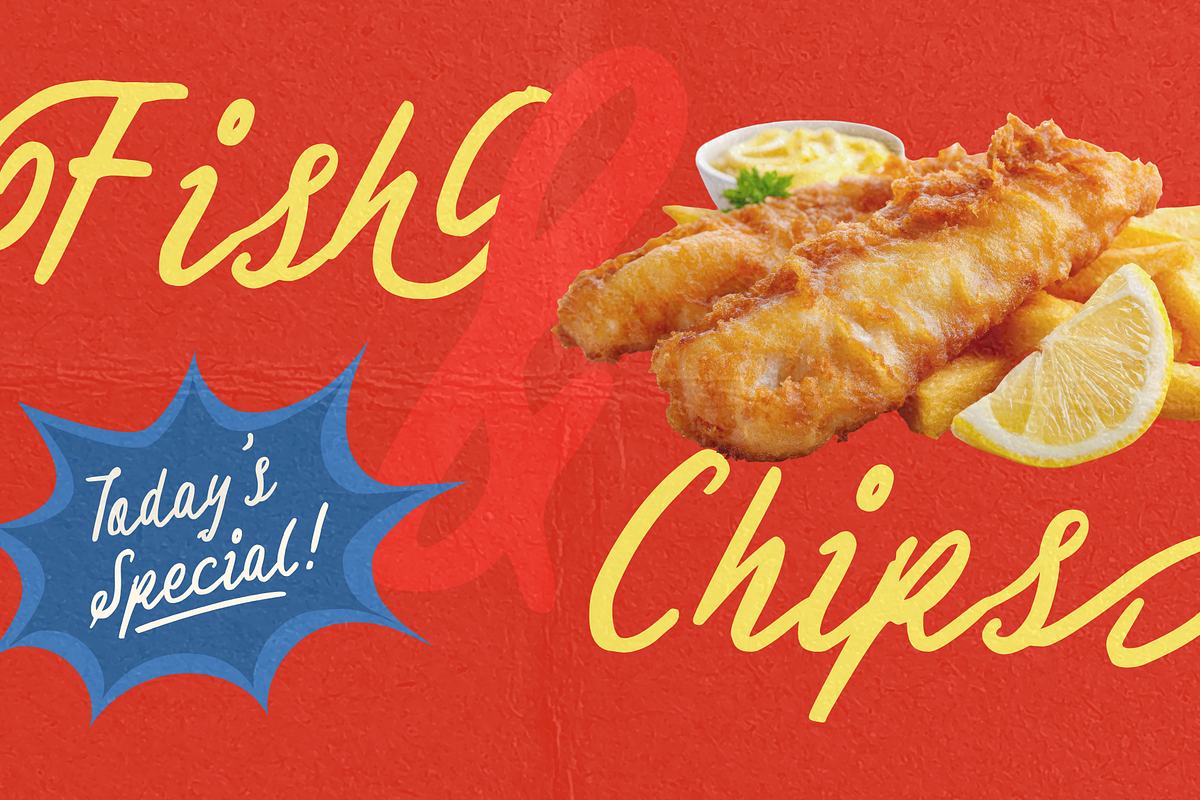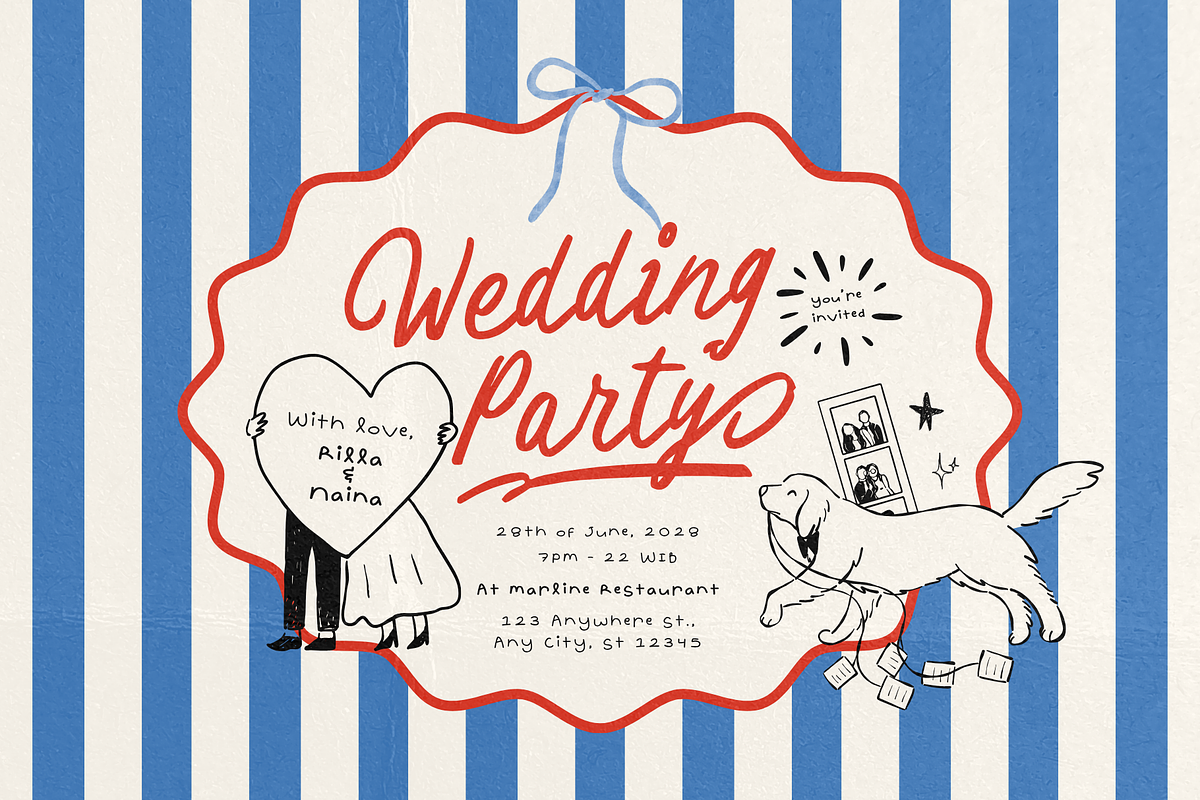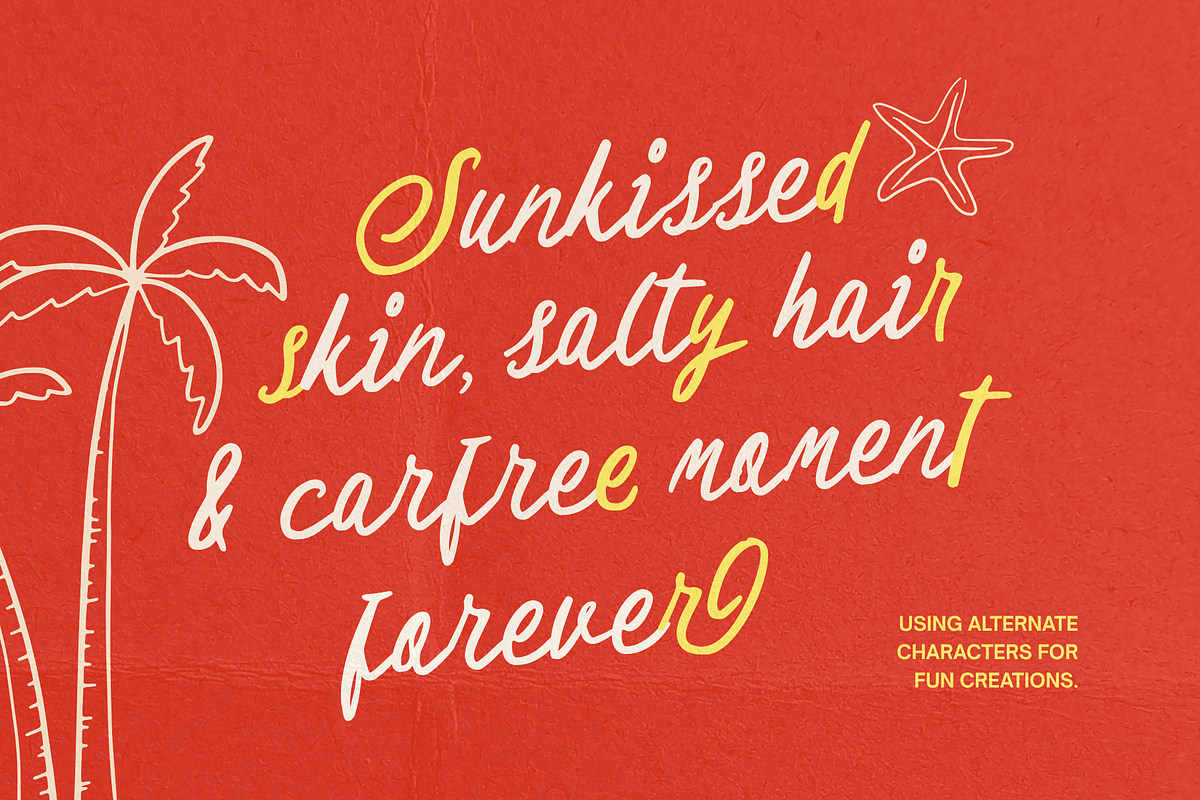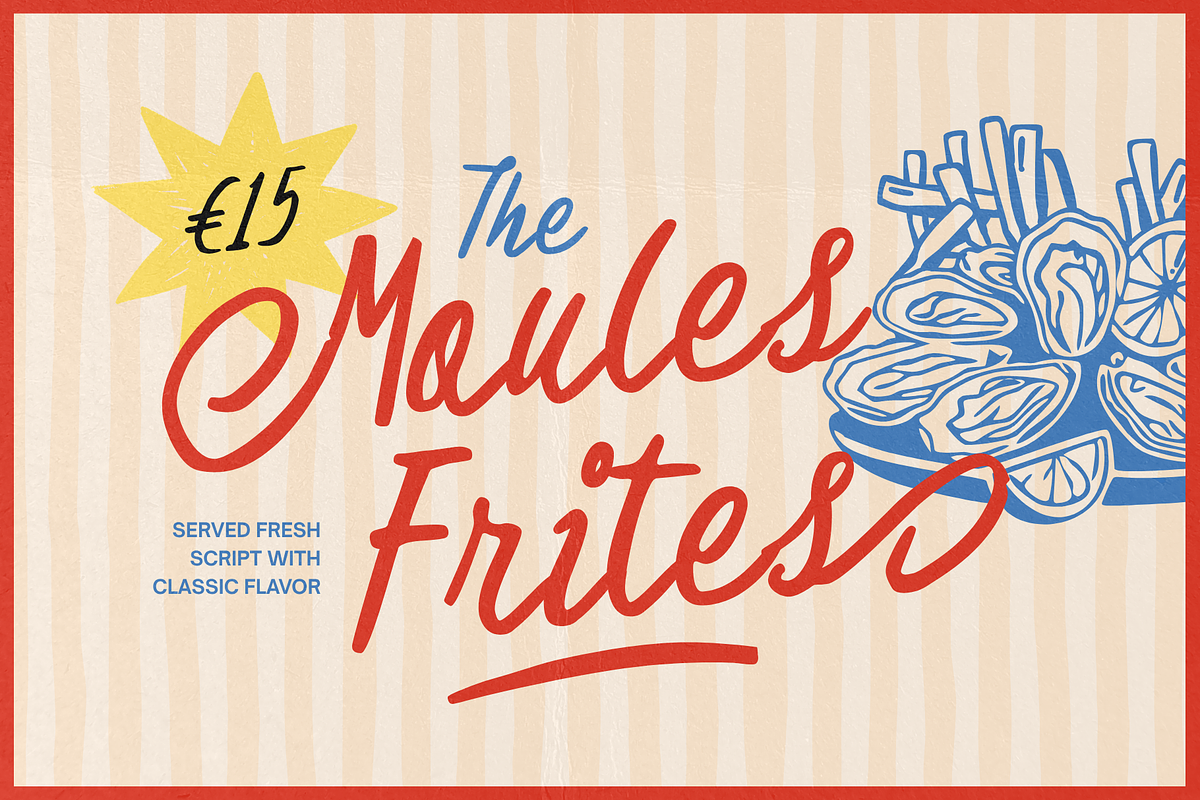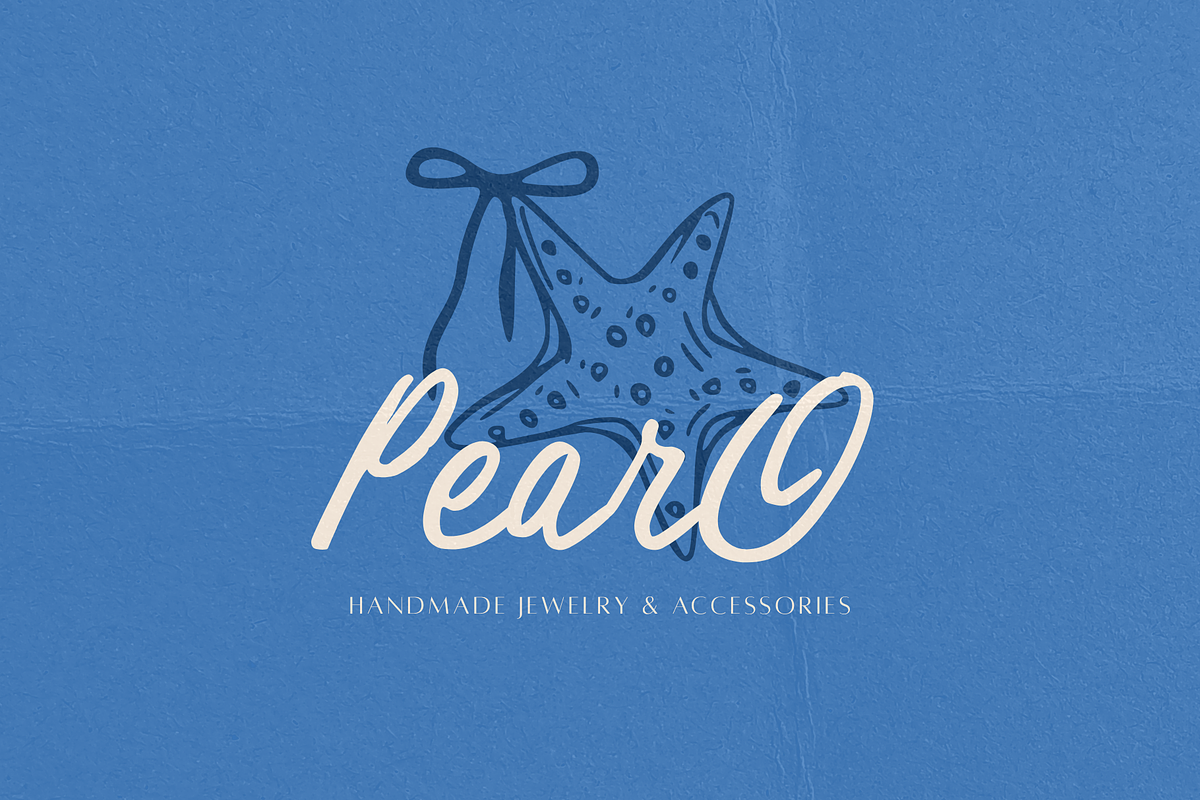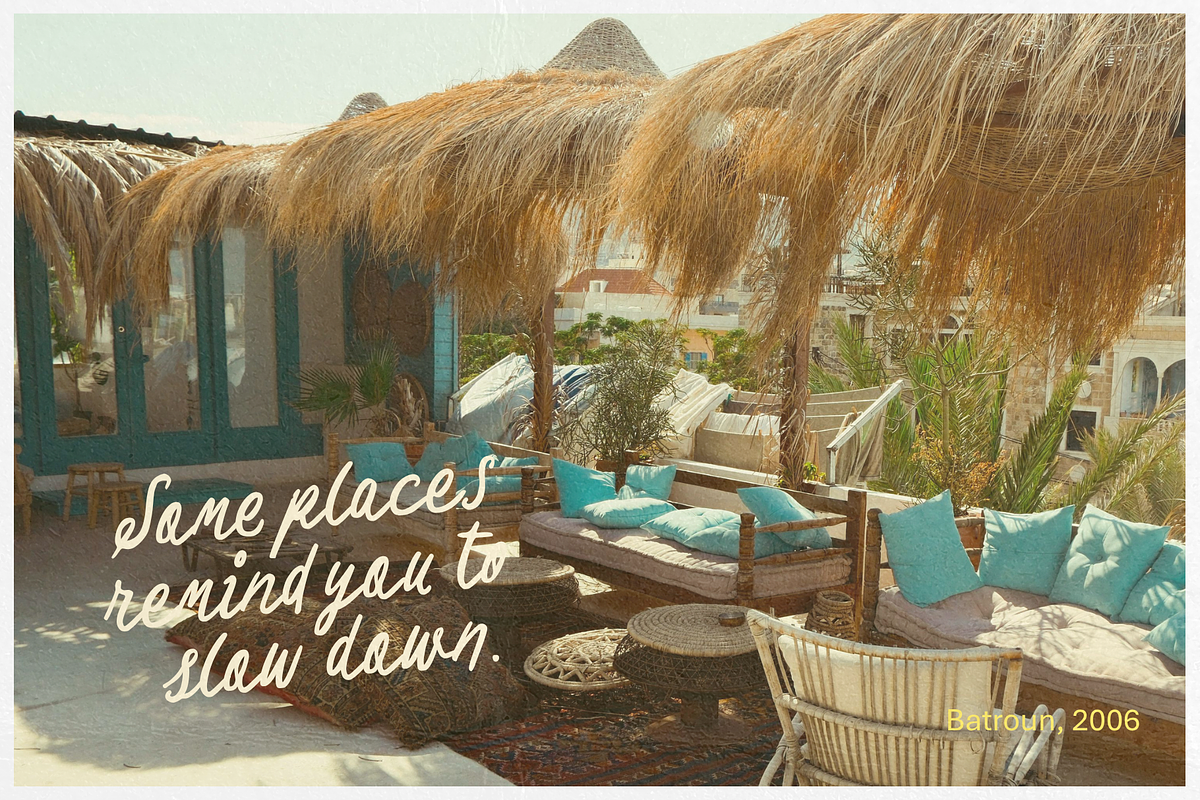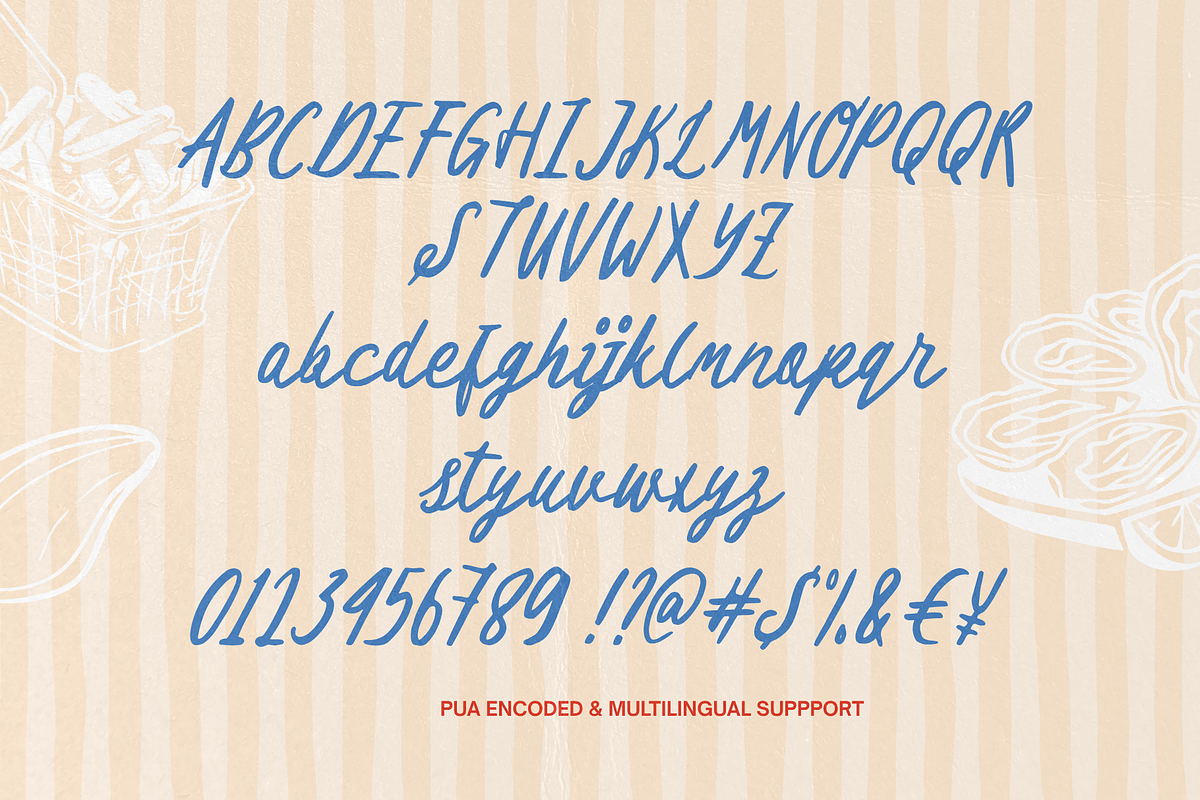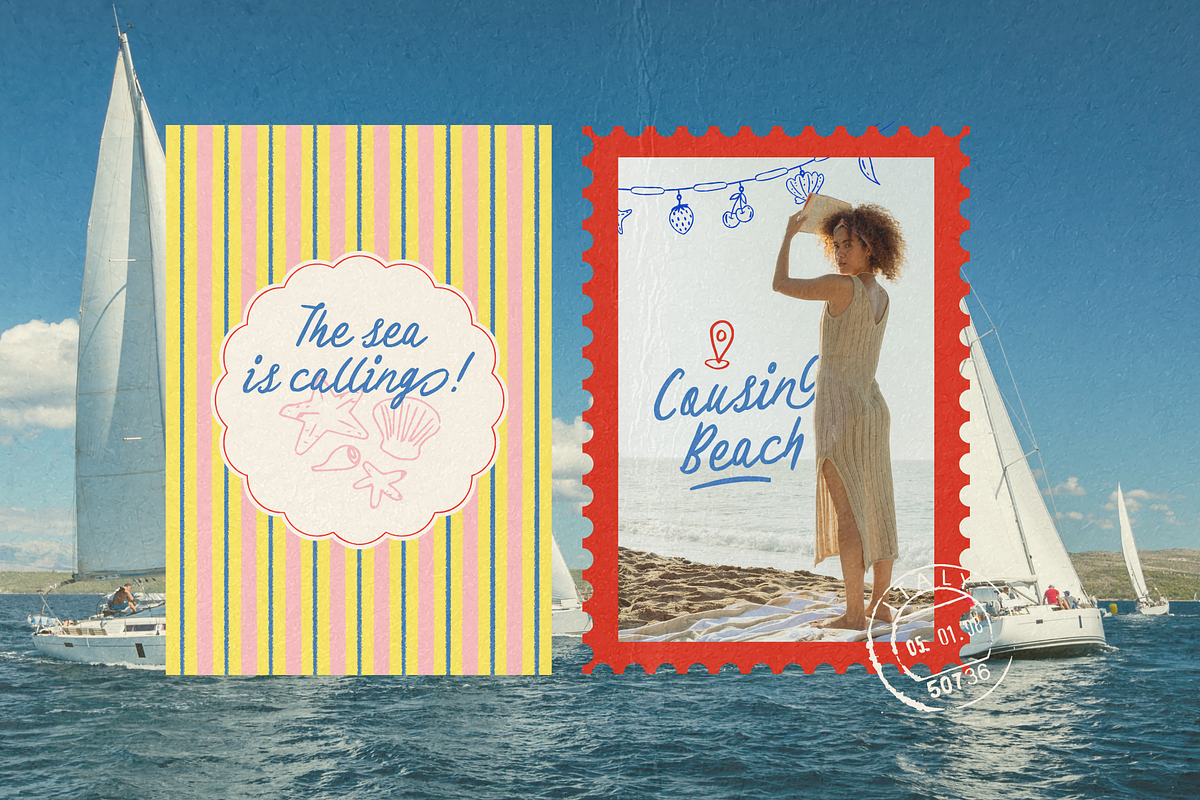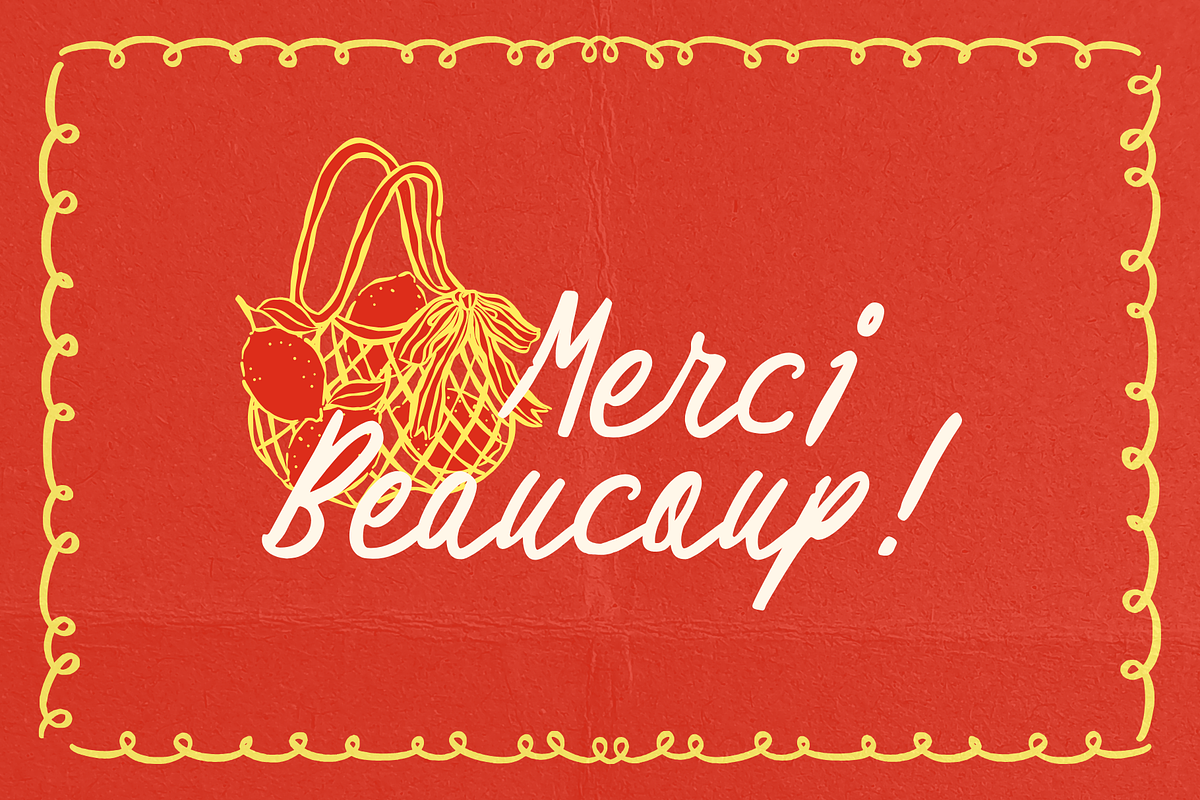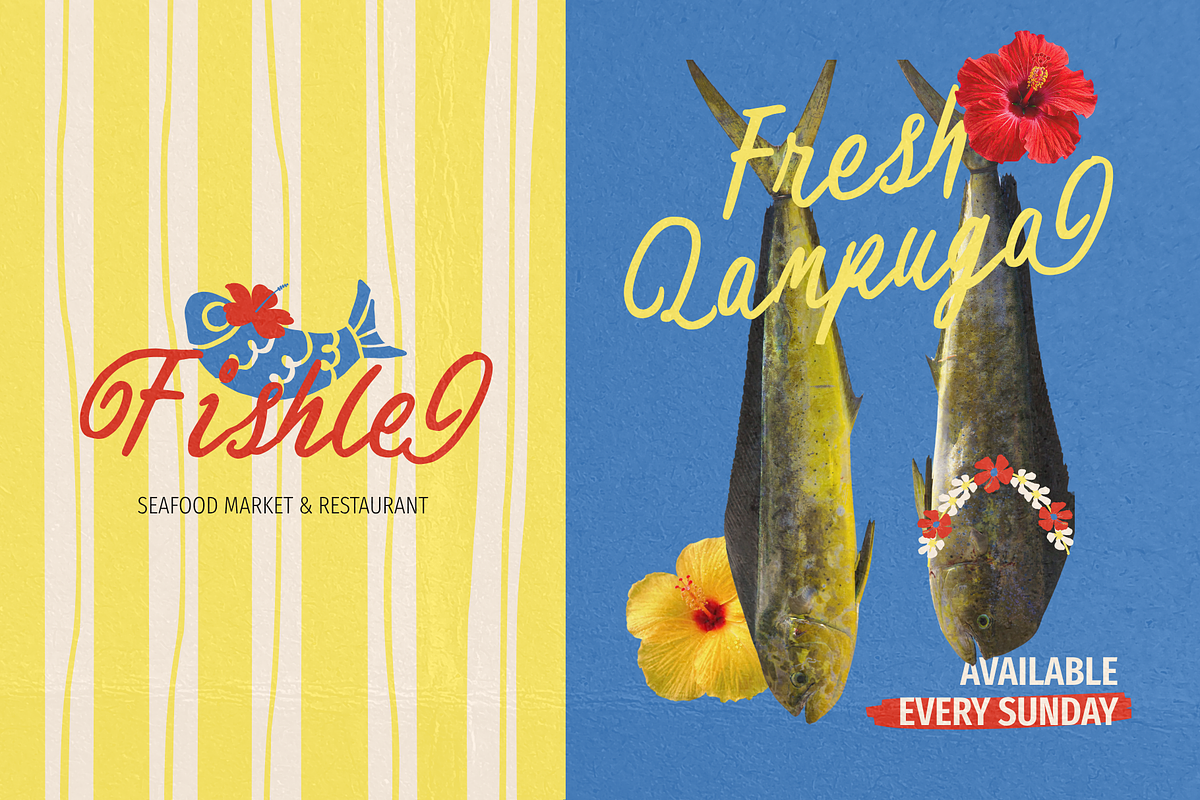
The Moules Frites Classic Script
Served fresh with a classic flavor, The Moules Frites is a handwritten script that captures the warmth of vintage sign painting and the easygoing spirit of coastal dining. Inspired by vintage menu boards, neighborhood seafood bistros, and hand-painted market signs, its flowing strokes feel warm, welcoming, and naturally expressive.